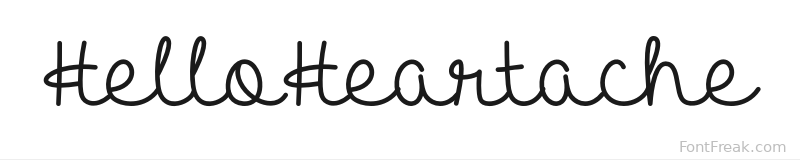
Hello Heartache
About Hello Heartache
The "Hello Heartache" font by Misti Hammers is a delightful handwritten style that embodies a playful yet emotive aesthetic. This script font features smooth, flowing lines and a charming character set that captures the essence of personal expression. The stroke weight is consistent, providing a balanced appearance, while the spacing between letters enhances its legibility. Decorative elements, such as playful curves and loops, add a whimsical touch that makes it ideal for various creative projects.
This font is particularly well-suited for wedding invitations, where its romantic flair can beautifully convey heartfelt messages. It also shines in the context of greeting cards, allowing for a personal touch that resonates with recipients. Additionally, "Hello Heartache" works wonderfully for branding projects, especially for businesses in the arts, crafts, or lifestyle sectors, as it effectively communicates warmth and approachability. Content creators and graphic designers will find that this font adds a unique personality to social media graphics and blog headings, making it an excellent choice for those looking to engage their audience.
The target audience for "Hello Heartache" includes graphic designers, small business owners, and content creators who desire a font that combines a casual feel with artistic flair. Its freeware licensing makes it accessible for anyone looking to enhance their projects without breaking the bank.
What sets the "Hello Heartache" font apart is its ability to evoke emotion through its distinctive handwritten style, making it a standout choice in the world of typography. For those searching for a unique typeface that resonates with authenticity, the "Hello Heartache font free download" offers a perfect solution that can elevate any creative endeavor.